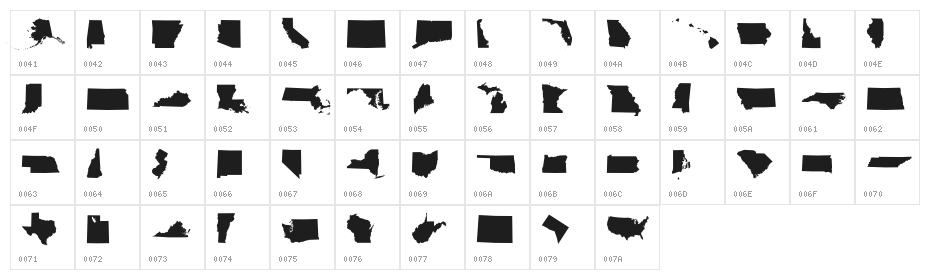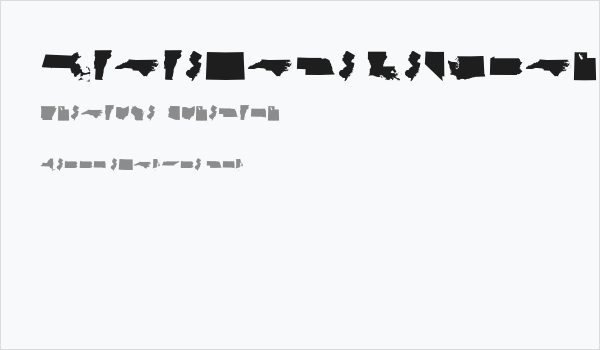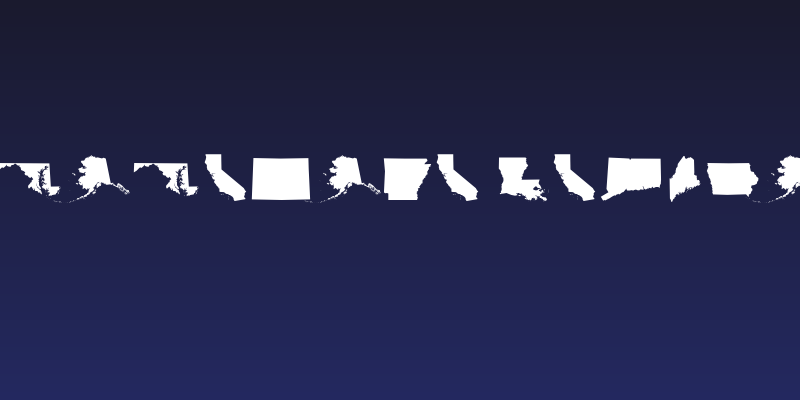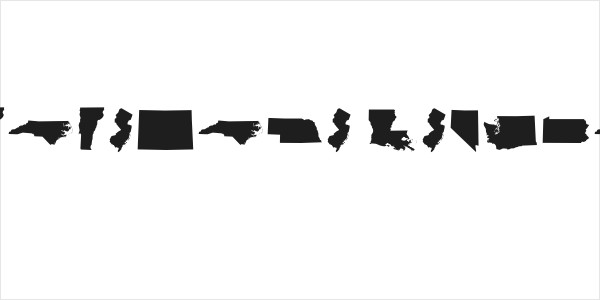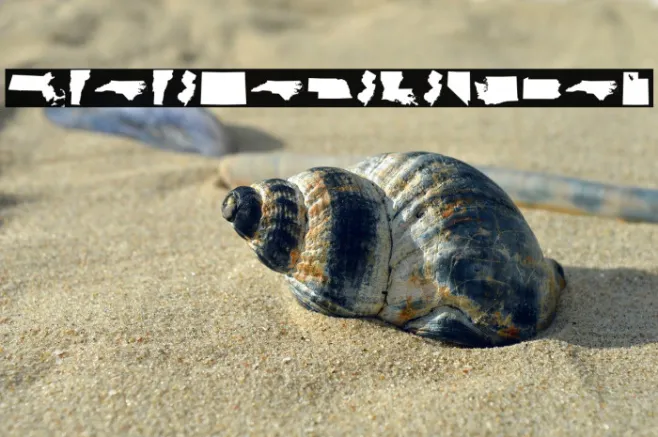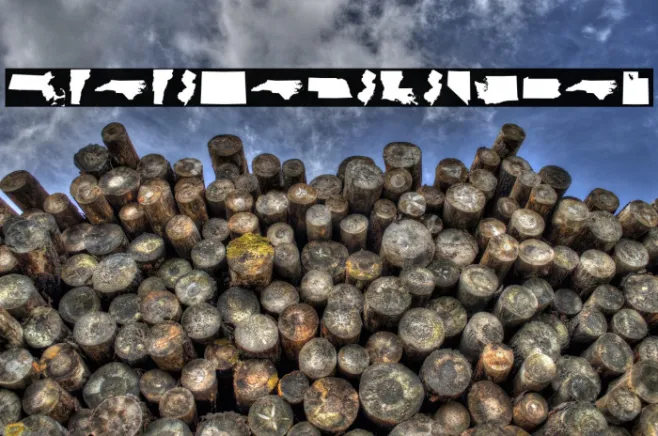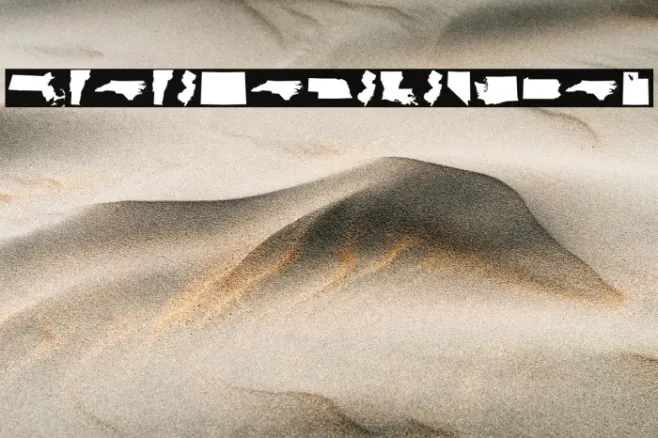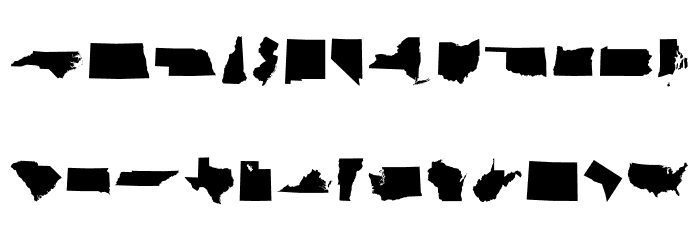
StateFace-Regular Font
StateFace-Regular Description
This font features silhouettes of U.S. state shapes, each representing a different character. The design is highly distinctive and visually striking, making it ideal for projects that require a geographical or patriotic theme. Each state is rendered in a bold, solid black silhouette, providing a strong visual impact. The font lacks traditional typographic elements like serifs or strokes, focusing instead on the unique outlines of each state. This makes it less suitable for body text but excellent for decorative purposes.
| Use Case | Logos, Posters, Educational Materials |
| Proposed Projects | Ideal for educational materials, geography-themed designs, travel brochures, or patriotic event promotions. |